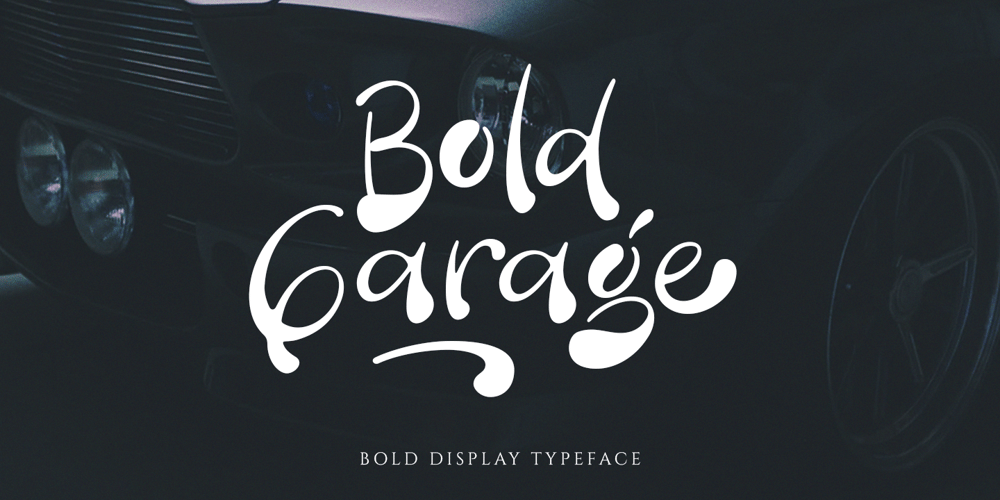
Bold Garage Font Family was designed by Hendry Juanda and published by Letterhend. Bold Garage contains 1 styles and family package options. Introducing, Bold Garage. Bold Garage is an unusual Bold font that gives you the extraordinary feel. If you want to pick bold and standout font for your design, this is the font that you’re looking for! This font is perfect for quotes, branding, packaging, etc.What will you get: Including number and symbol. Support Multi Language This font also support PUA Encoded! So, grab your own. Thank You!